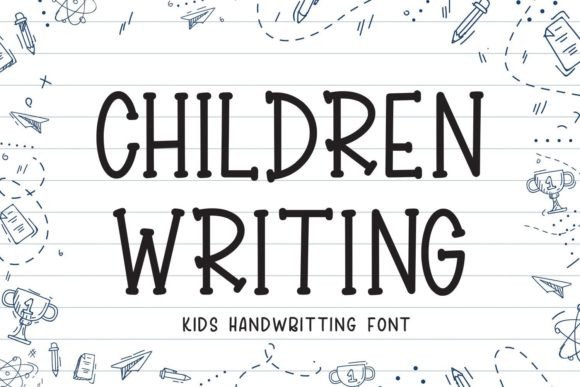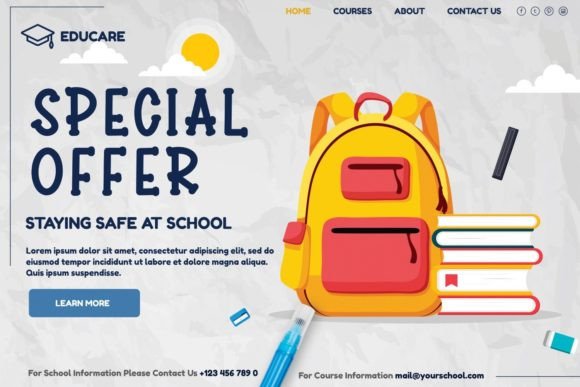
About Children Writing Font
“Children Writing” is a fun, trendy, and cute handwritten font that’s perfect for a variety of creative projects. Whether you’re working on Cricut projects, Procreate designs, crafting, branding, decorating, farmhouse designs, shirts, SVG designs, blogs, logos, invitations, frames, book covers, stationery, marketing, magazines, and more, this font is designed to add a playful and versatile touch to your designs.
The whimsical and handwritten style of “Children Writing” makes it suitable for a wide range of applications. Its versatility allows it to bring a sense of fun and creativity to your projects, capturing the playful essence of childhood. The font’s trendy and cute characteristics make it particularly well-suited for projects that require a youthful and lighthearted vibe.
Whether you’re creating digital or print designs, “Children Writing” is crafted to enhance your projects with its charming and fun aesthetic. Its handwritten appearance adds authenticity and a touch of innocence, making it a valuable asset for various creative endeavors.
In summary, “Children Writing” is more than just a font; it’s a design tool meticulously crafted to infuse a sense of playfulness into your projects. Let this fun and cute handwritten font be the key to creating spectacular designs that capture the joy of creativity.